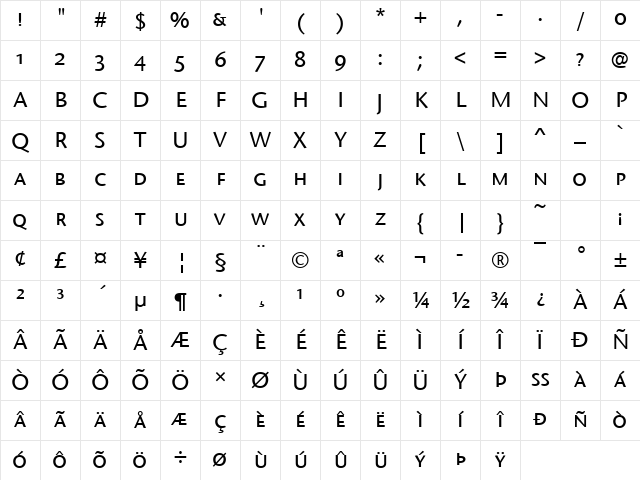
StoneSanSCItcTMed Regular Free Font
StoneSanSCItcTMed Regular
Design Context for StoneSanSCItcTMed
StoneSanSCItcTMed is a composed and adaptable typeface that performs quietly and consistently across a wide range of design contexts.
Pro Tip: Use StoneSanSCItcTMed in both headline and body roles to test its range before committing to a single application.